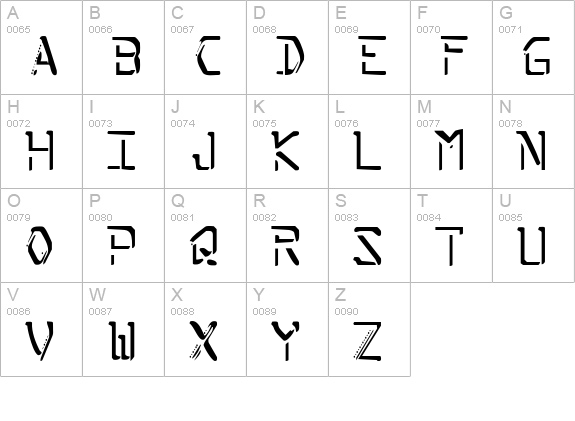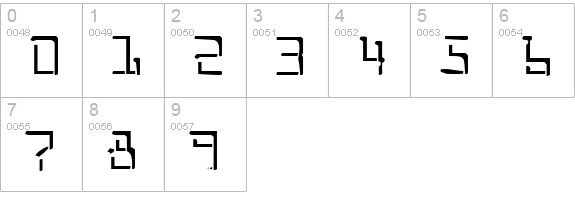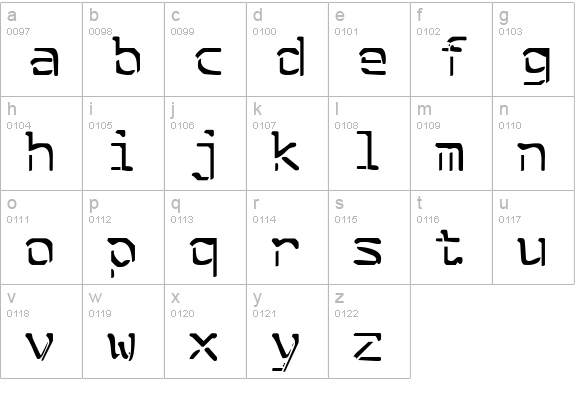
Split Enzymes Font Details
Introducing Split Enzymes, a font that combines modern elegance with a touch of edgy sophistication. With its distinctive split design, this font is sure to make a bold statement on any creative project. Split Enzymes is a versatile typeface that can be used for a wide range of design purposes, from branding and advertising to social media graphics and website headers. Its unique letterforms are carefully crafted to captivate the viewer's attention, creating a visual experience that is both captivating and memorable. One of the most attractive features of Split Enzymes is its versatility – it can be used as a headline font for maximum impact, or as a body text font for a more subtle effect. The clean and crisp lines of the letters are balanced beautifully with subtle curves, creating a harmonious blend of modern and classic design elements. What sets Split Enzymes apart from other fonts is its ability to convey a sense of creativity and innovation. The split design of the letters adds a playful and dynamic touch, making it perfect for projects that require a fresh and contemporary look. Whether you're designing a logo for a tech startup or creating eye-catching social media graphics, Split Enzymes will help you stand out from the crowd. And the best part? Split Enzymes is freely available to download at FontsMarket.com. This means that you can easily access this stunning font and start using it in your projects right away. So why wait? Elevate your designs with the captivating charm of Split Enzymes and watch as they come to life with a touch of modern sophistication.